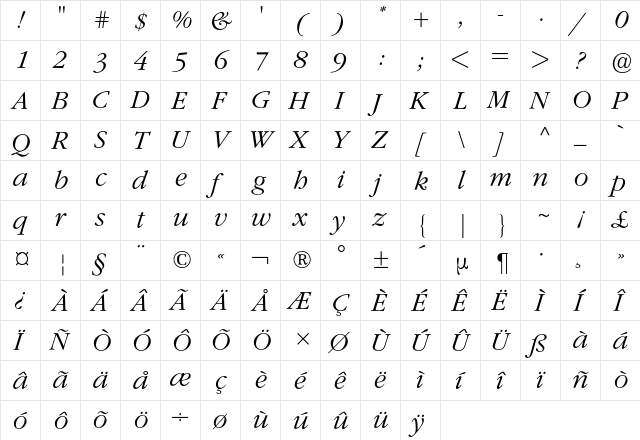
Garamond ITC BQ Regular
Design Context for Garamond ITC BQ Typeface
Garamond ITC BQ is a composed and adaptable typeface that performs quietly and consistently across a wide range of design contexts.